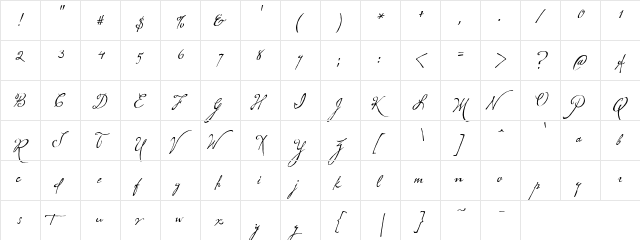
CK Maternal Regular
Design Context for CK Maternal Typeface
CK Maternal is a composed and adaptable typeface that performs quietly and consistently across a wide range of design contexts.